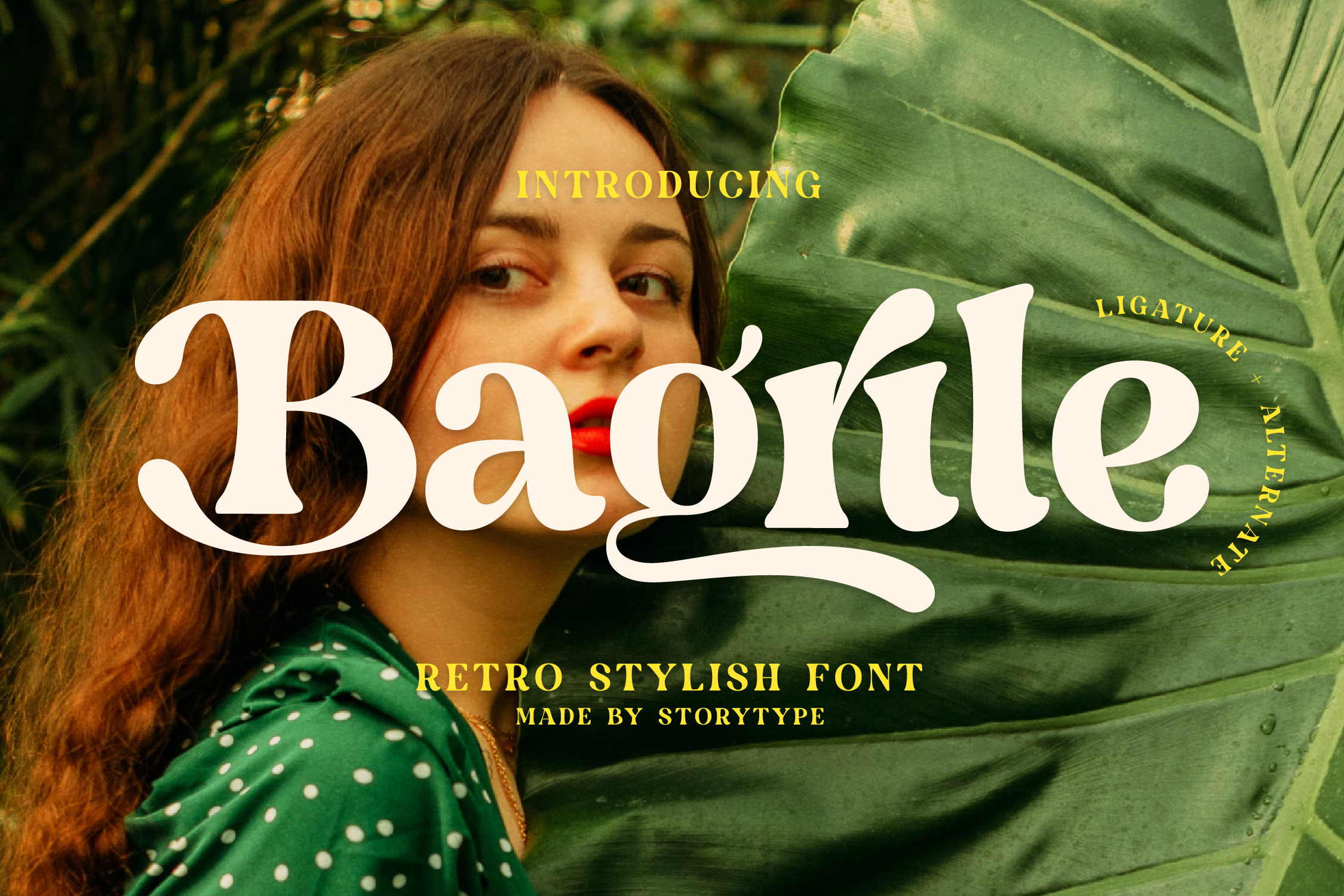
Bagrile Retro Stylish Font
Proudly present Bagrile Typeface , created by Storytype, A serif modern and classic typeface that has own unique style & modern look. This typeface is perfect for an elegant & luxury logo, book or movie title design, fashion brand, magazine, clothes, lettering, quotes, and so much more.